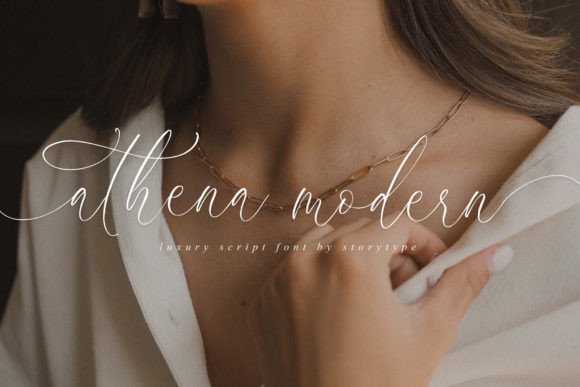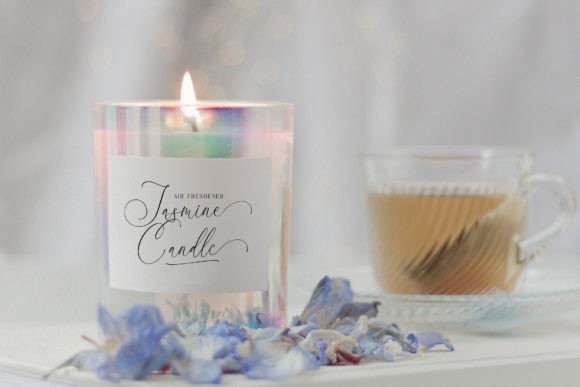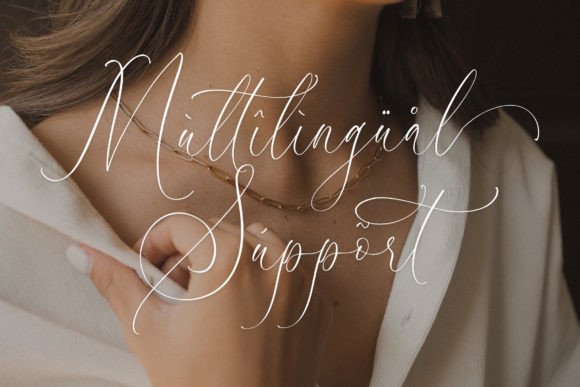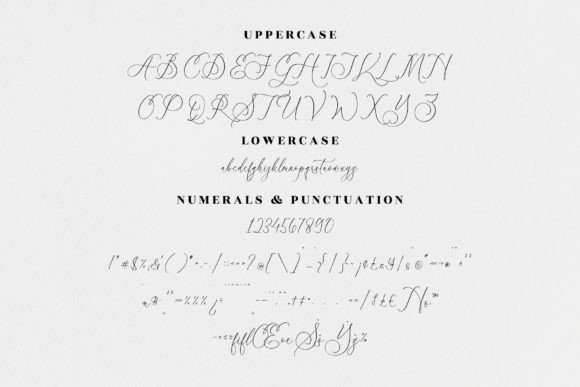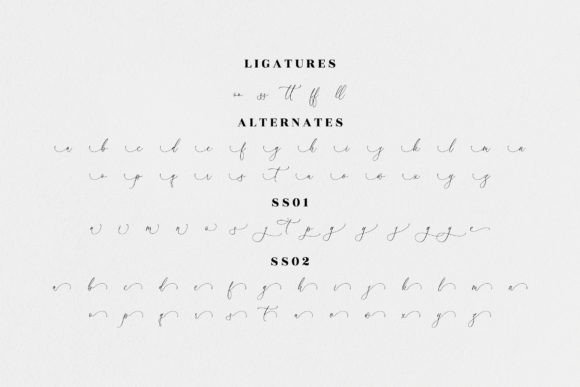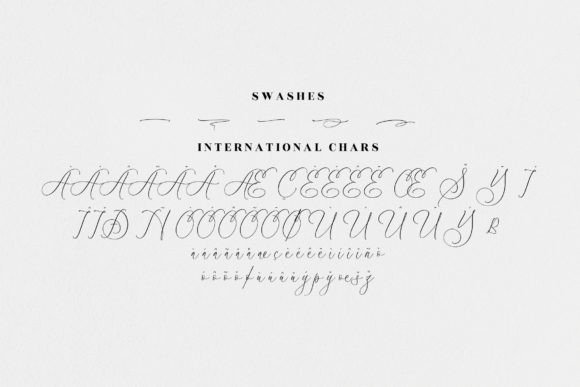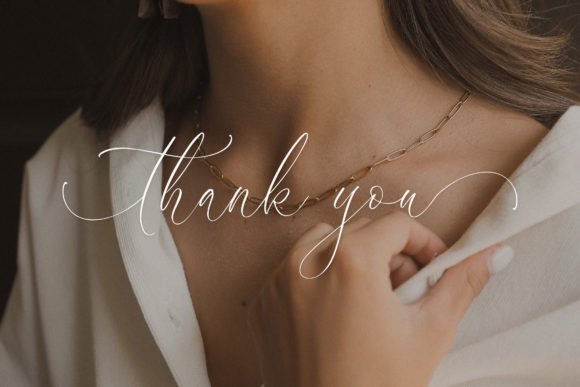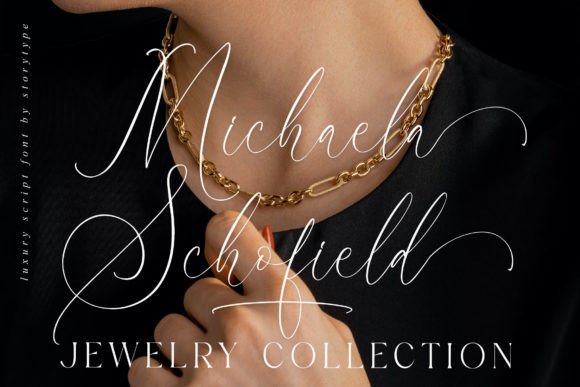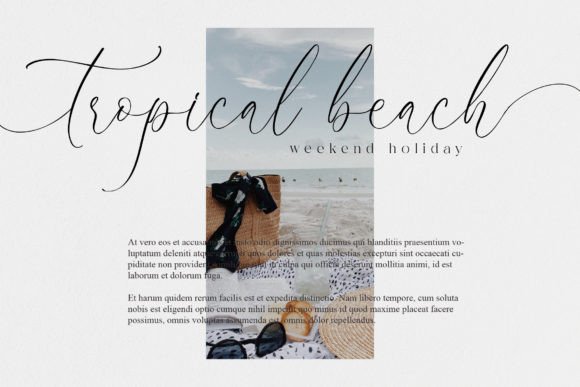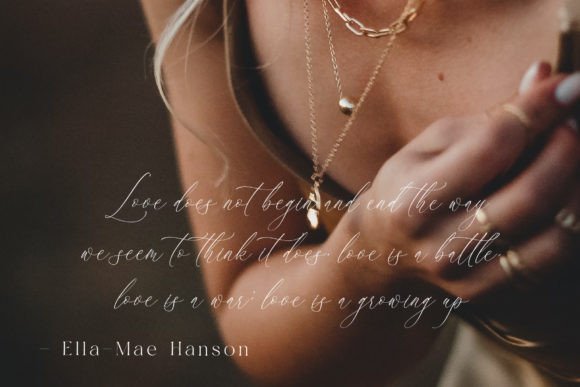
Athena Modern Font
Introducing “Athena,” a modern and luxurious script font that exudes a unique style and a sense of sophistication. This typeface is designed to elevate your design projects, making it perfect for elegant and luxury applications such as logos, book or movie title design, fashion brands, magazines, clothing, lettering, quotes, and much more.
The allure of “Athena” lies in its ability to convey a feeling of opulence and exclusivity. Each character is meticulously crafted to exude a sense of modernity and luxury, making it an ideal choice for projects where you want to make a bold and memorable statement. Imagine using “Athena” for a high-end fashion brand’s logo, where the font itself becomes a symbol of style and sophistication.
For branding, titles, magazines, lettering, and a wide range of design applications, “Athena” brings a contemporary and luxurious elegance to your content. It has a versatile quality that can elevate the visual appeal of your projects, regardless of the context or theme.
Furthermore, the font’s PUA encoding means that you can easily access its extensive range of glyphs and swashes, providing you with enhanced creative possibilities. This feature empowers you to create unique and personalized designs with ease, adding an extra layer of sophistication to your work.
In summary, “Athena” is more than just a font; it’s a design asset that brings modern luxury and exclusivity to your creative work. Its stylish script style and versatility make it suitable for a variety of applications, and its ability to convey opulence and sophistication sets it apart. With “Athena” in your font collection, your design projects will exude a sense of contemporary elegance and luxury that leaves a lasting impression.